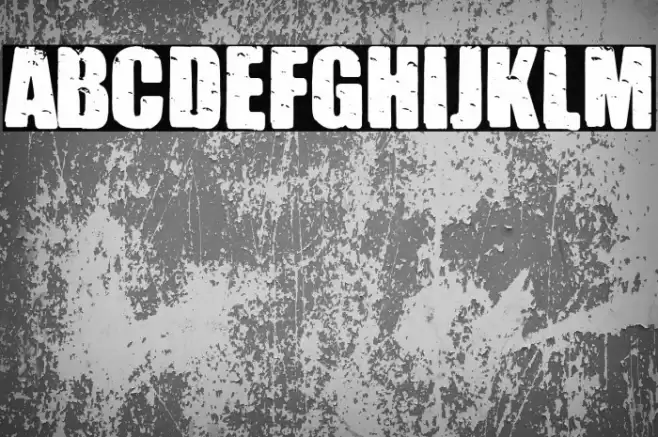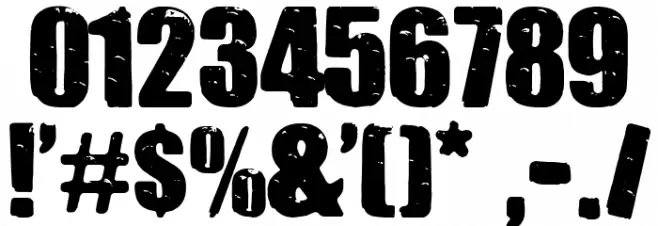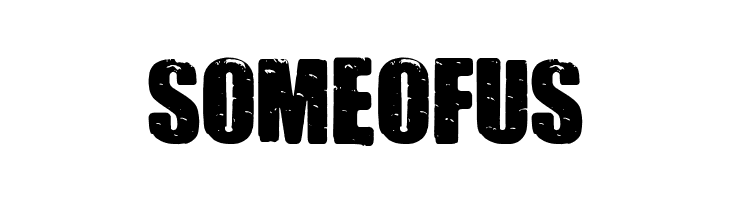
Cheedar Cheese Font
Cheedar Cheese Description
This font features a bold, distressed style with a rugged texture that gives it a vintage and worn appearance. The characters are thick and heavy, with uneven edges and a slightly rough finish, creating a sense of age and authenticity. The uppercase and lowercase letters maintain a consistent weight, while the numerals and special characters follow the same distressed aesthetic. This font is ideal for projects that require a strong, impactful look with a touch of nostalgia or a handcrafted feel.
- Proposed Projects: Ideal for posters, logos, branding, and packaging that require a vintage or rustic touch.
- Overall Style: Vintage